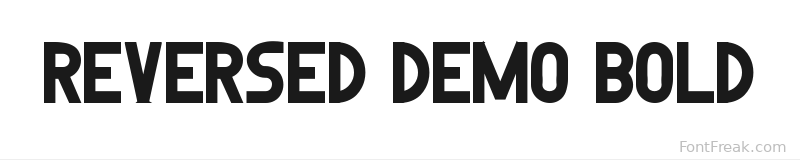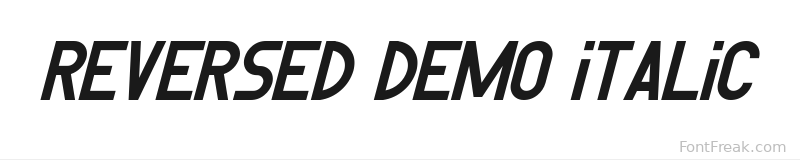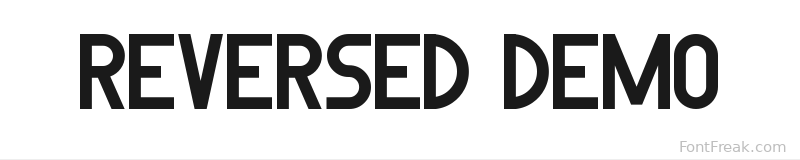
Reversed Demo
About Reversed Demo
Reversed Demo by Noah Type is a striking display font that captures attention with its bold and innovative design. This font falls into the category of decorative typefaces, characterized by its unique reversed letterforms that create a visually captivating experience. The stroke weight is consistent and bold, lending a sense of strength and modernity, while the italic style adds a dynamic flair. The overall spacing is well-balanced, ensuring readability while maintaining an engaging aesthetic.
The Reversed Demo font is an excellent choice for a variety of creative projects. It shines in contexts like movie posters, where its dramatic style can evoke excitement and intrigue. Additionally, it works beautifully for branding purposes, particularly for small businesses looking to make a memorable impression. This font can also elevate wedding invitations, adding a touch of elegance and uniqueness to the special day. Furthermore, it is well-suited for restaurant menus, where its distinctive appearance can draw diners' attention and highlight the menu items in a fresh way.
Targeted primarily at graphic designers, small business owners, and content creators, Reversed Demo offers versatility and creativity in equal measure. It allows users to express their brand's personality while standing out in a crowded marketplace.
What makes the Reversed Demo font truly special is its ability to blend boldness with elegance, making it a perfect fit for both modern and classic design contexts. The free download option allows users to experiment and integrate this captivating typeface into their projects without hesitation. With its eye-catching design and unlimited potential for creative applications, the Reversed Demo font is a must-have for anyone looking to add a distinctive touch to their work.